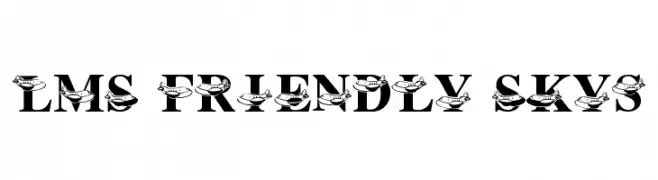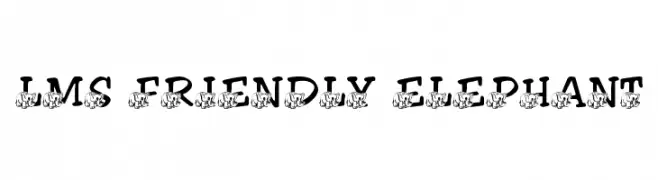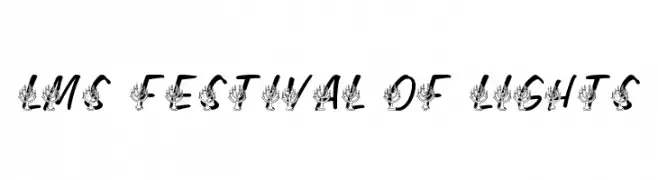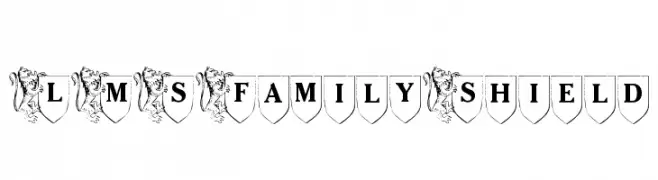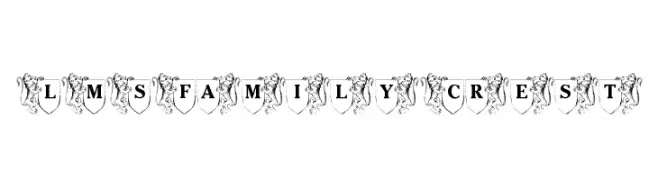
A bold serif font with integrated airplane illustrations for a playful touch.
A bold, playful font with elephant illustrations accompanying each letter.
A bold, decorative font with floral patterns integrated into each character.
A decorative font with princess illustrations for each uppercase letter.
A decorative font with bold, italicized letters and candelabra motifs for a festive look.
A heraldic font with characters enclosed in shield emblems, ideal for decorative use.
An ornate, heraldic shield-enclosed decorative font with a regal flair.
A whimsical, castle-themed decorative font with bold, enchanting characters.
A bold, decorative font with integrated face illustrations in each letter.
A decorative font with an integrated ankh symbol in each character.